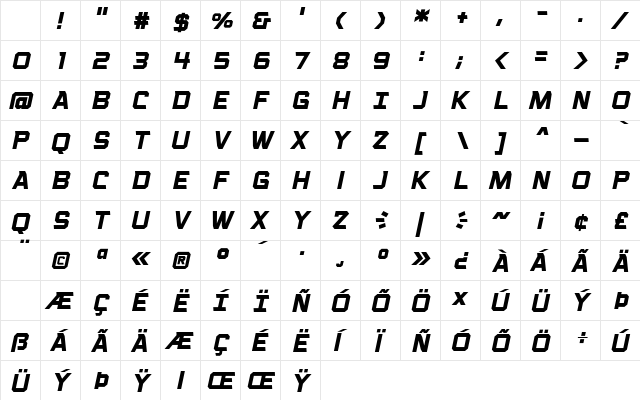
Complete Voice Activated Caps BB Bold Italic glyph index. Displaying only characters natively supported by Voice Activated Caps BB Bold Italic font.
Voice Activated Caps BB is a composed and adaptable typeface that performs quietly and consistently across a wide range of design contexts. The slanted form adds forward momentum and visual energy. Its bold stroke weight gives it real presence on the page.
Pro Tip: Use Voice Activated Caps BB for emphasis, pull quotes, and subheadings where its slanted energy can add rhythm to the layout.